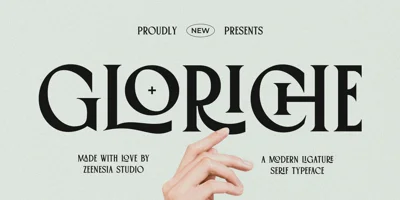
Gloriche Font
Gloriche Font is ideal for luxury branding, high-end fashion magazines, elegant wedding invitations, premium product packaging, corporate identities, sophisticated logos, editorial headlines, and upscale restaurant menus. This refined typeface brings an air of exclusivity and professionalism to any design project requiring premium aesthetics.
What makes Gloriche Font exciting is its perfect balance between modern sophistication and timeless elegance. The carefully crafted letterforms feature subtle geometric influences with refined curves that create exceptional readability while maintaining distinctive character. Each glyph demonstrates meticulous attention to detail, resulting in a harmonious typography solution that commands respect and admiration.
The Gloriche Font family typically includes multiple weights ranging from light to bold, complete with matching italics. The comprehensive character set encompasses uppercase and lowercase letters, numerals, punctuation marks, and extended Latin characters to support various languages and international projects.
Whether you're developing a luxury brand identity or designing editorial layouts, Gloriche Font delivers unmatched versatility and refinement. This premium typography choice transforms ordinary text into compelling visual statements that resonate with discerning audiences. The font's exceptional legibility across different sizes makes it suitable for both display headlines and extended reading applications. Experience how this sophisticated typeface can elevate your design projects with its distinctive elegance and professional polish that sets your work apart from the competition.